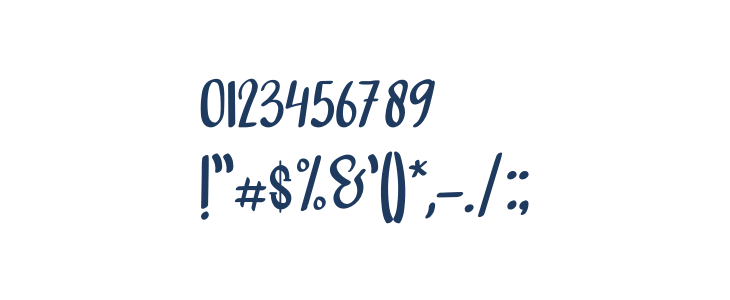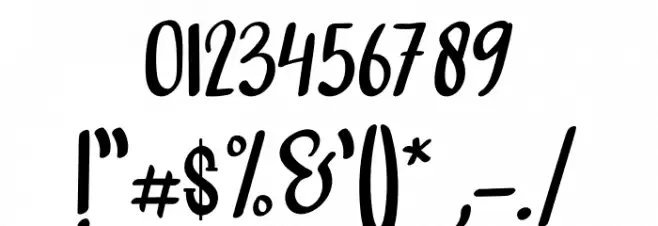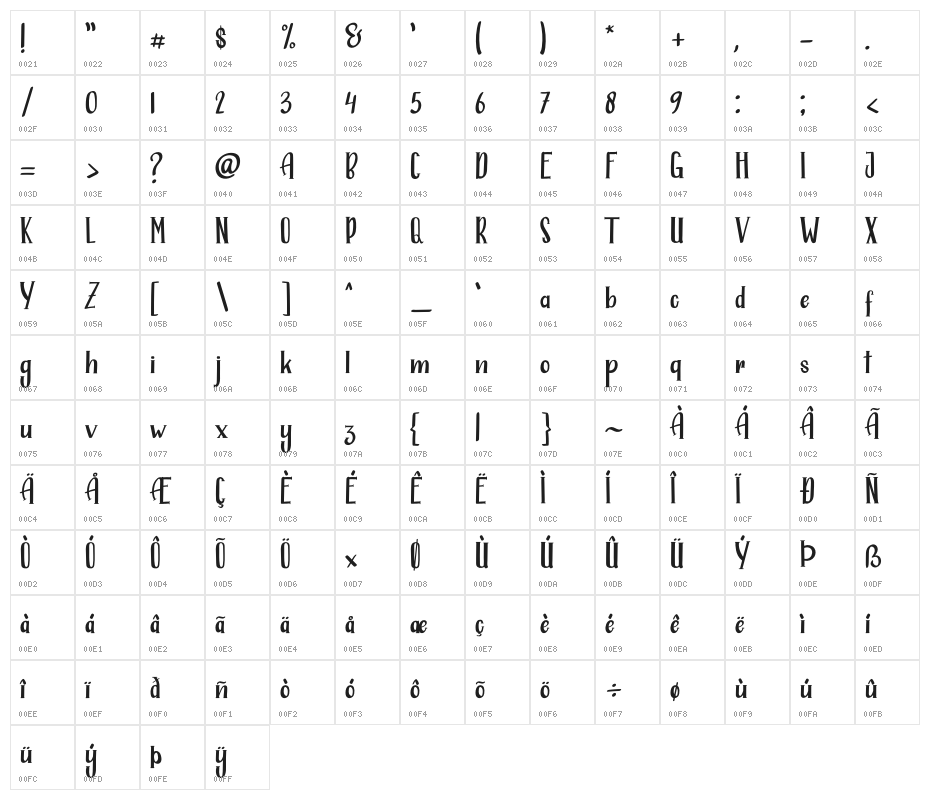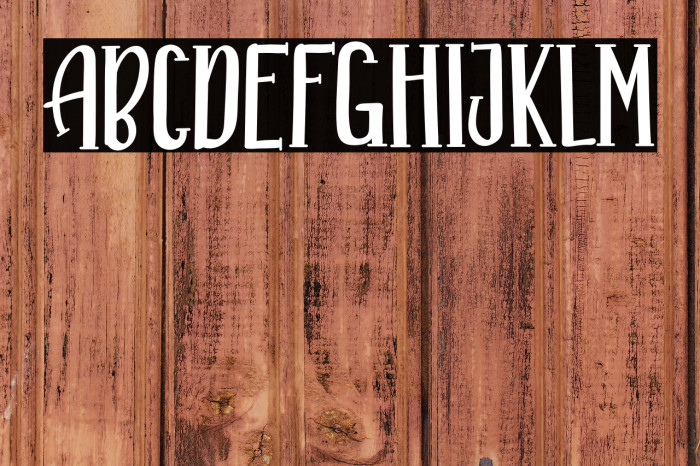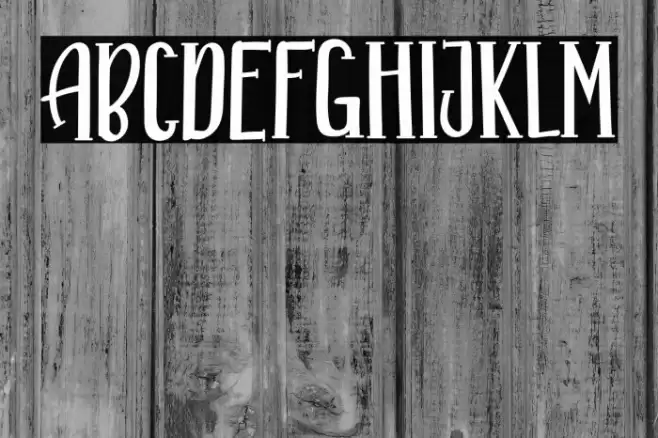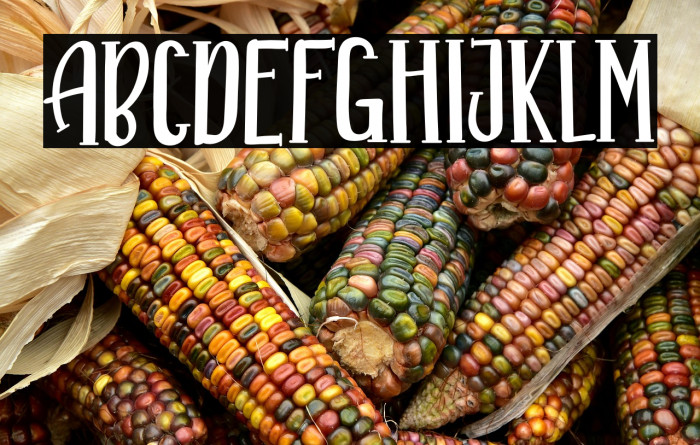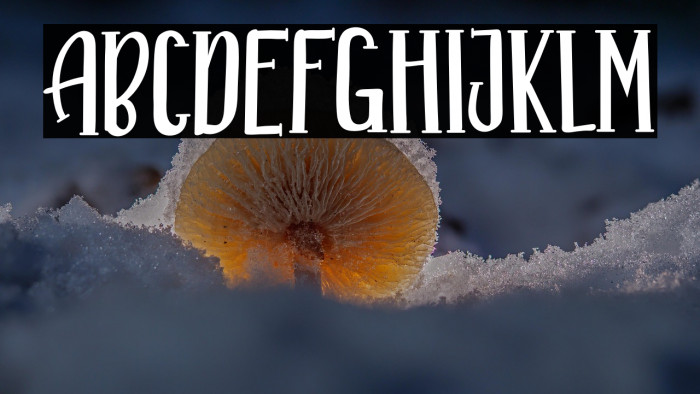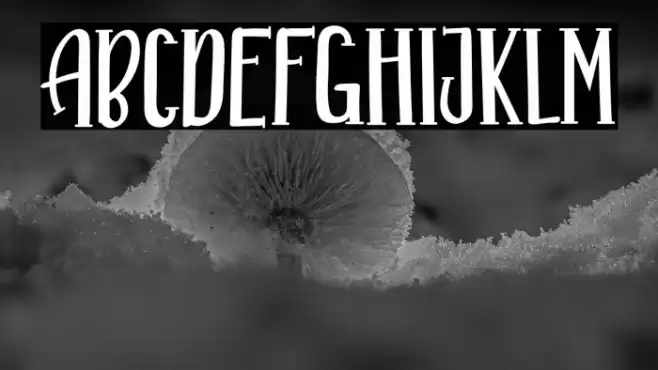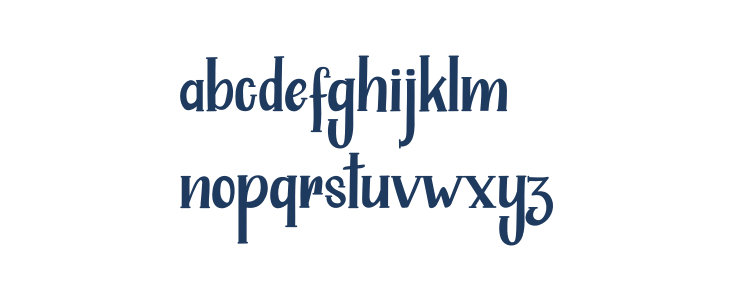
ALASKANA Font
ALASKANA Description
This font features a bold and dynamic style with a strong presence. The uppercase letters are tall and slightly condensed, giving a sense of elegance and authority. The lowercase letters maintain a consistent flow, with some characters exhibiting unique flourishes that add a touch of personality. The numerals are clear and legible, matching the overall aesthetic of the font. Special characters are well-integrated, maintaining the font's cohesive look. This font is suitable for projects that require a bold statement, combining both modern and classic elements.
| Proposed Projects | Ideal for branding, headlines, posters, and any design that requires a strong visual impact. |